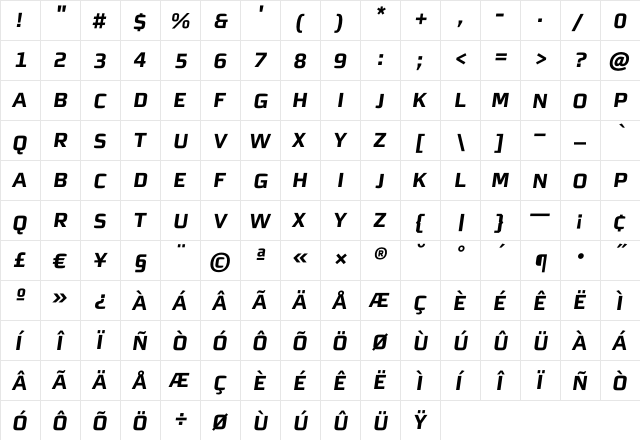
MorganSnCaps Bold Oblique
Design Context for MorganSnCaps Typeface
MorganSnCaps takes a measured approach to typography — its balanced proportions and neutral character make it a reliable workhorse for both digital and print work. Its italic angle brings a sense of urgency and motion to the letterforms. The heavy weight commands attention and anchors typographic hierarchies.
Pro Tip: Use MorganSnCaps for emphasis, pull quotes, and subheadings where its slanted energy can add rhythm to the layout.